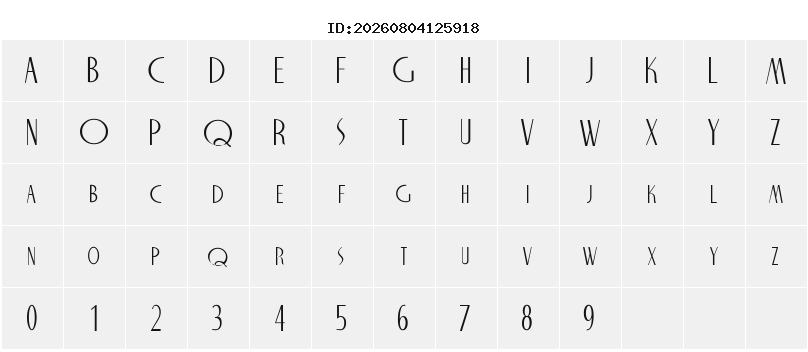
• Font Name: Nite
• Font ID: Altsys Fontographer 3.5 Nite Regular
• Full Font Name: Nite Regular
• Version: Altsys Fontographer 3.5 6/15/93
• PostScript Name: NiteClub
• Character Count: 106
• Copyright: Generated by Fontographer 3.5
About Nite.ttf
Nite.ttf is a modern, elegant sans-serif font designed for ultimate readability and visual harmony. Perfect for branding, headlines, web design, and print materials.